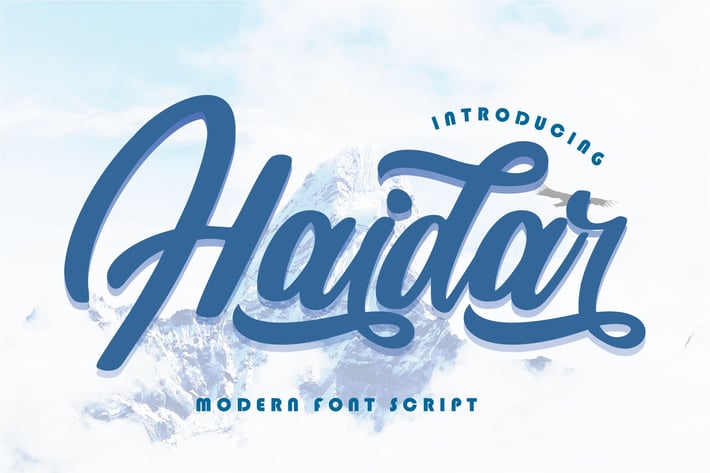
Haidar | Modern Font Script
Haidar | Modern Font Script with a calligraphy style, So beautiful on invitation like greeting cards, branding materials, business cards, quotes, posters, and more!